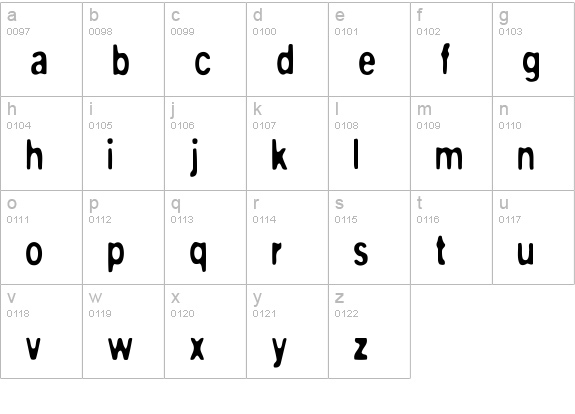
Masterly Font Details
Masterly is a stunning font that exudes elegance and sophistication. With its clean lines and graceful curves, this typeface is perfect for adding a touch of luxury to any design project. Whether you're creating a logo, designing a website, or crafting a print advertisement, Masterly will elevate your work to the next level. What sets Masterly apart is not only its impeccable design but also its availability as a free download. That's right, this remarkable font can be yours without spending a penny. Thanks to FontsMarket.com, you can freely access this exceptional typeface and incorporate it into your creative endeavors. Imagine the possibilities with Masterly. Its versatility allows it to be used across various industries, from fashion and beauty to hospitality and luxury brands. The clean yet bold letterforms make a statement, while the subtle details add a touch of sophistication. Whether you're aiming for a minimalist aesthetic or a more ornate design, Masterly has got you covered. Beyond its impeccable design, Masterly is also highly legible, ensuring that your message is effortlessly conveyed to your audience. The carefully crafted letter spacing and balanced proportions enhance readability, making this font suitable for both headlines and body text. Masterly's timeless appeal is further enhanced by its extensive character set, including various ligatures and alternate glyphs. These additional options allow you to create unique and eye-catching typographic compositions that will captivate viewers. Don't miss out on the opportunity to elevate your design projects with the Masterly font. Download it for free at FontsMarket.com and unlock a world of elegance and sophistication. With Masterly, your creations are sure to stand out from the crowd and leave a lasting impression.